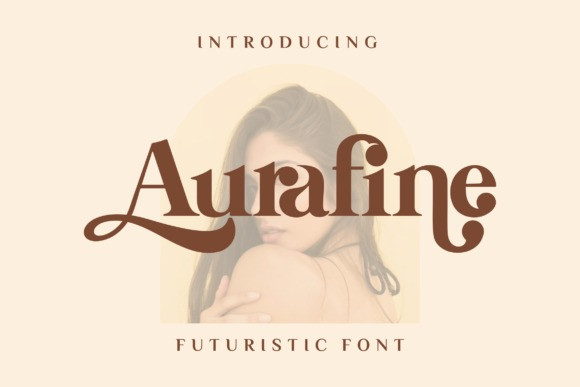
Aurafine Font
Aurafine is a bold and authentic serif font. The font is suitable for any branding project like logo, t-shirt printing, esport, and many more. It looks outstanding in a wide range of contexts.